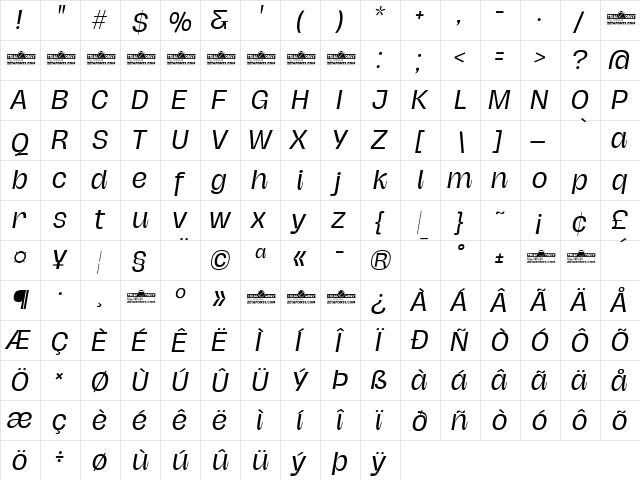
Hagrid Trial Italic
Italic · Cosimo Lorenzo Pancini Cosimo Lorenzo Pancini ·
Design Context for Hagrid Trial Typeface
Hagrid Trial takes a measured approach to typography — its balanced proportions and neutral character make it a reliable workhorse for both digital and print work. The slanted form adds forward momentum and visual energy.